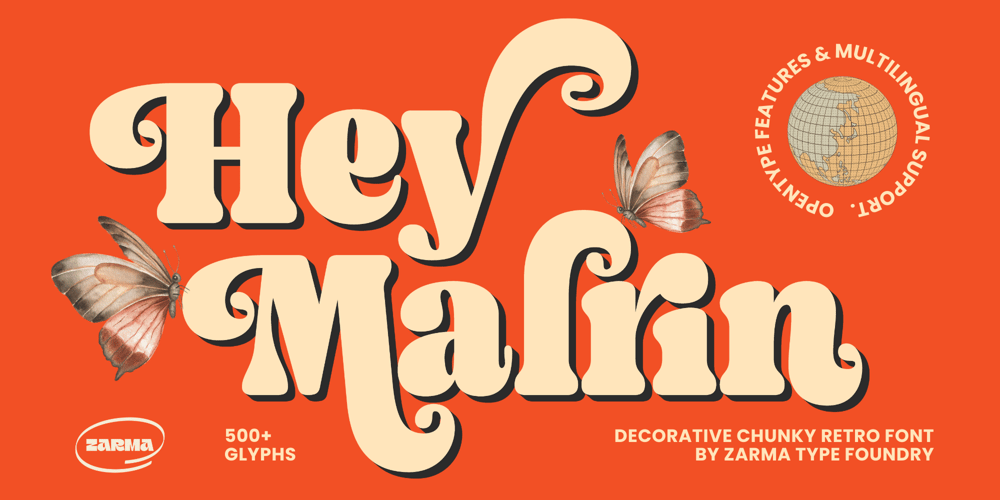
Malrin Font Family was designed by Azzam Ridhamalik and published by Azzam Ridhamalik. Malrin contains 1 styles and family package options. Introducing Malrin, a chunky retro font inspired by the great “fatface” genre. The concept builds on a groovy, funky and somewhat psychedelic look. Malrin has more than 180 alternative characters and some ligatures. This typeface is a perfectly choice to create logotypes with, and will be extremely attractive when used at a large display sizes, such as for headlines, posters, or in shopfront lettering.